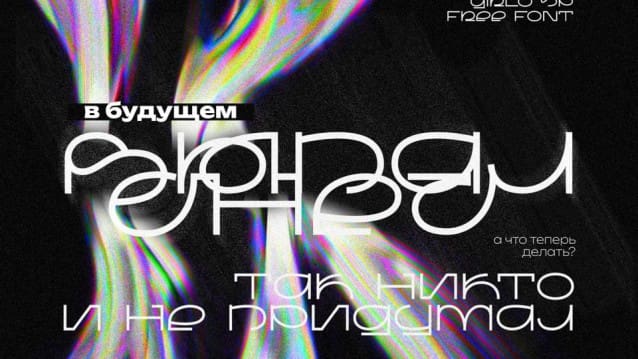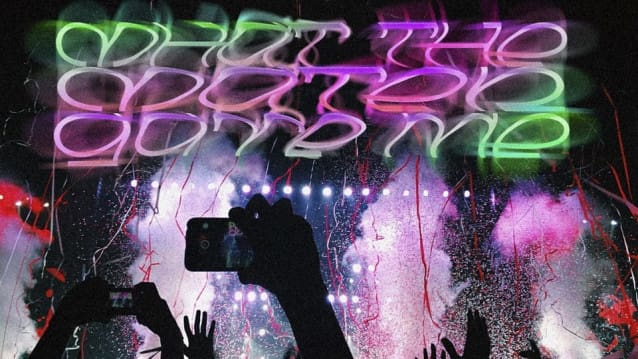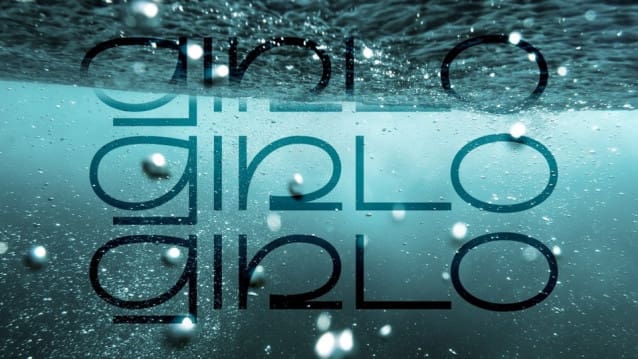
Girlo Font
Girlo Font is a display typeface in a modern style with an unusual shape of characters, inspired by the Nima fonts from ESH Gruppa and Archive Antique from Archive Type.
In the Girlo font, it was important to get creative with the shape of each glyph, while remaining within the ornate and fluid image with the stylistic elements of the Archive Antique font, which I found in the book “Don Girls” of 1888. From this the naming was born – Girlo from the word “girlo”, with an emphasis on 1 syllable and a soft g.
Girlo in the southern dialect of Russian and in the Ukrainian languages refers to shallow channels at the very end of the river mouth when it flows into the sea.